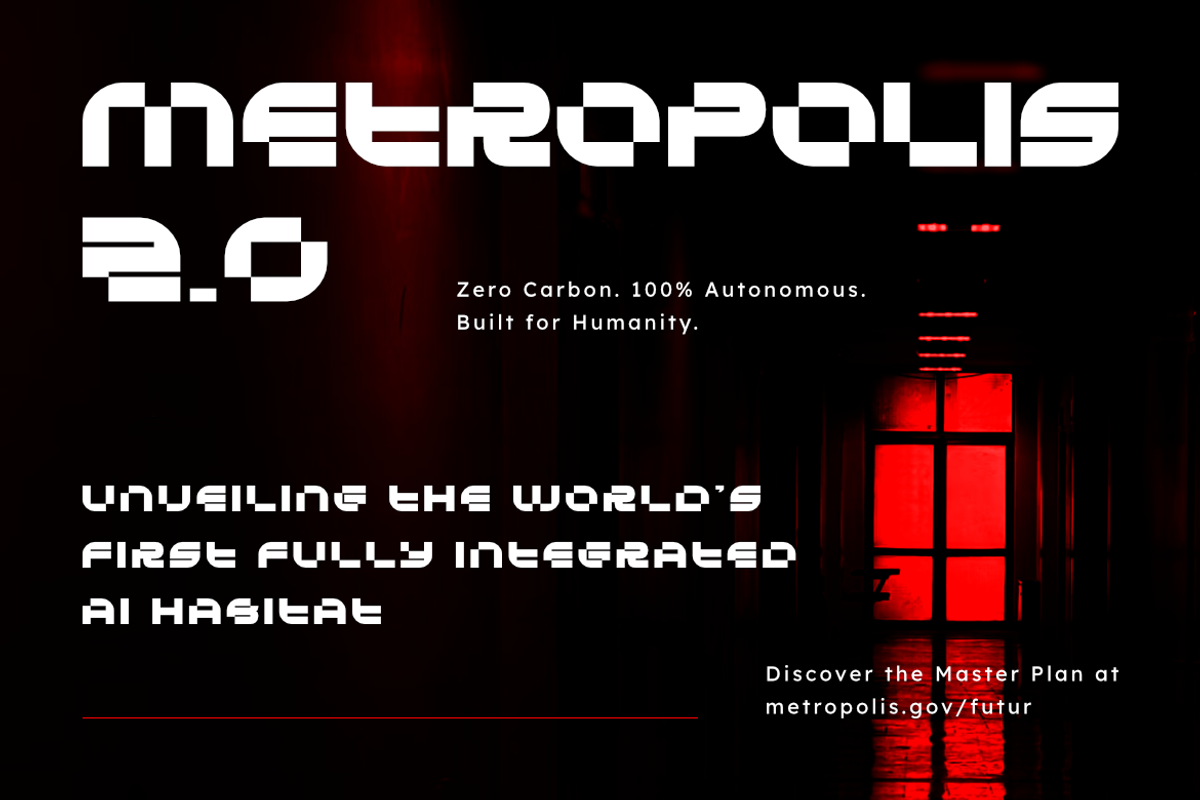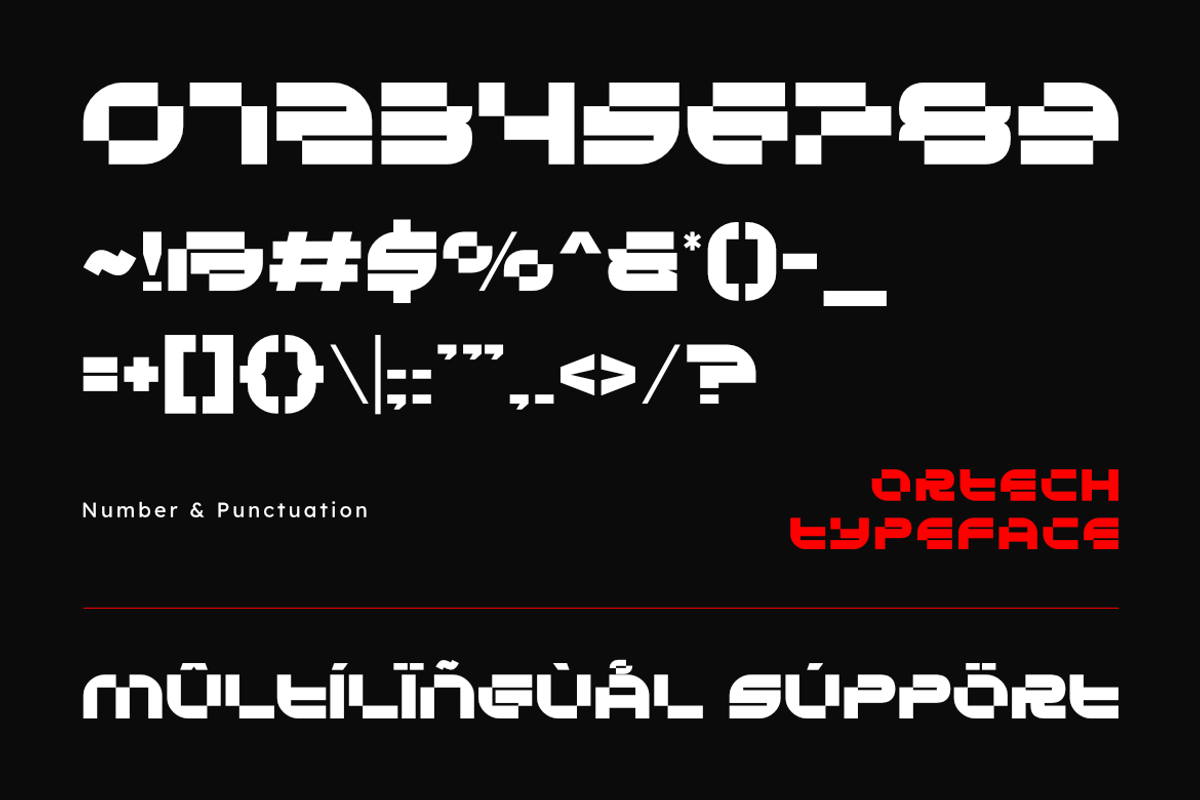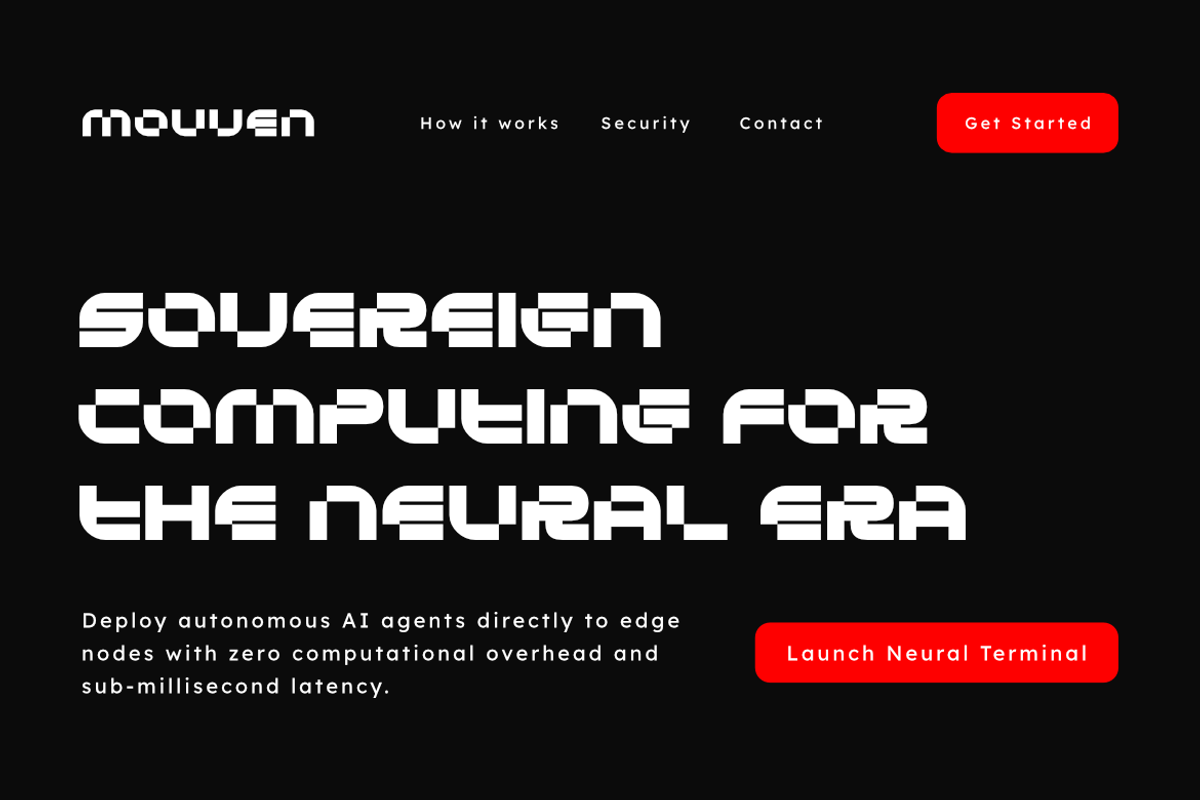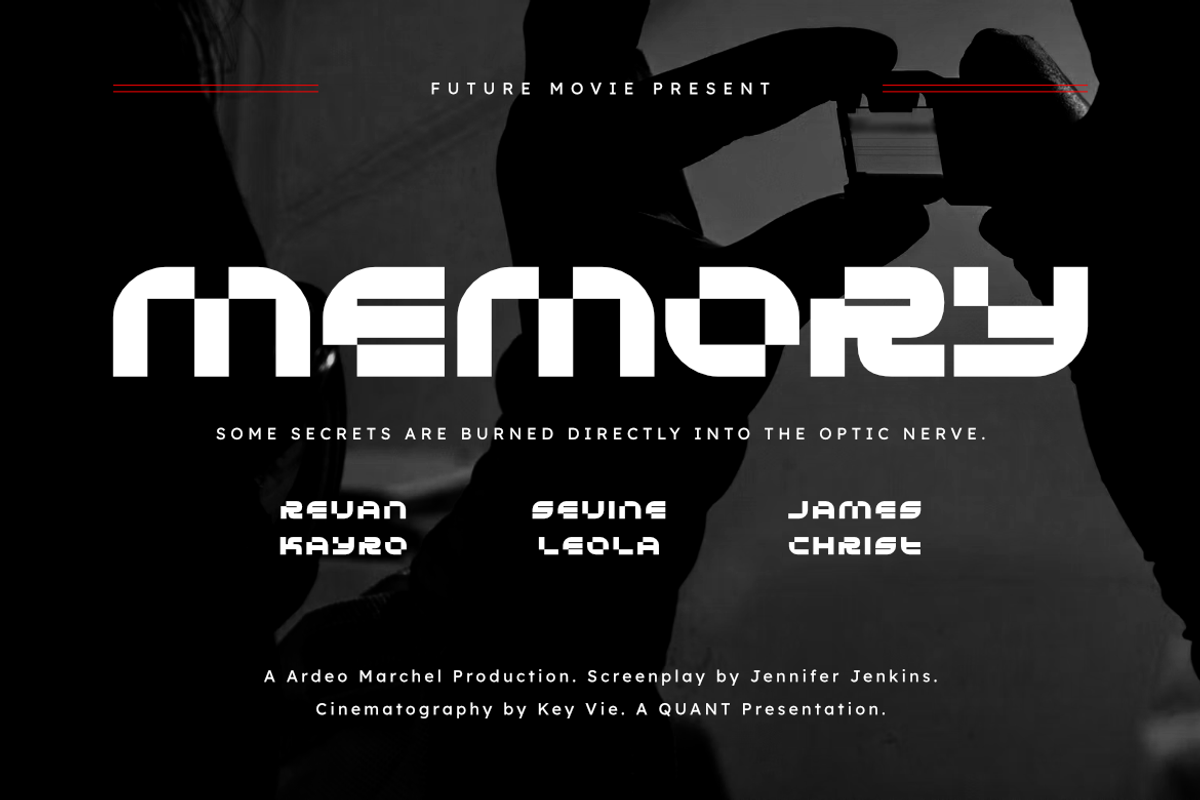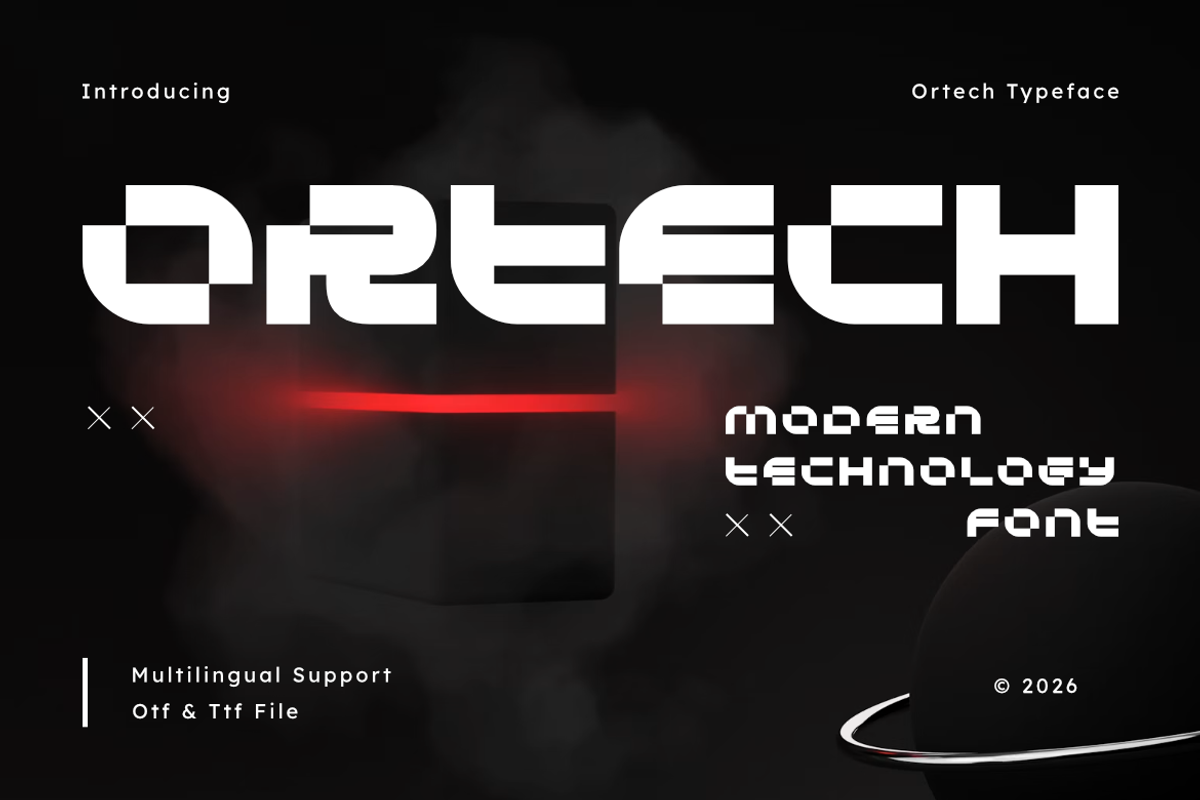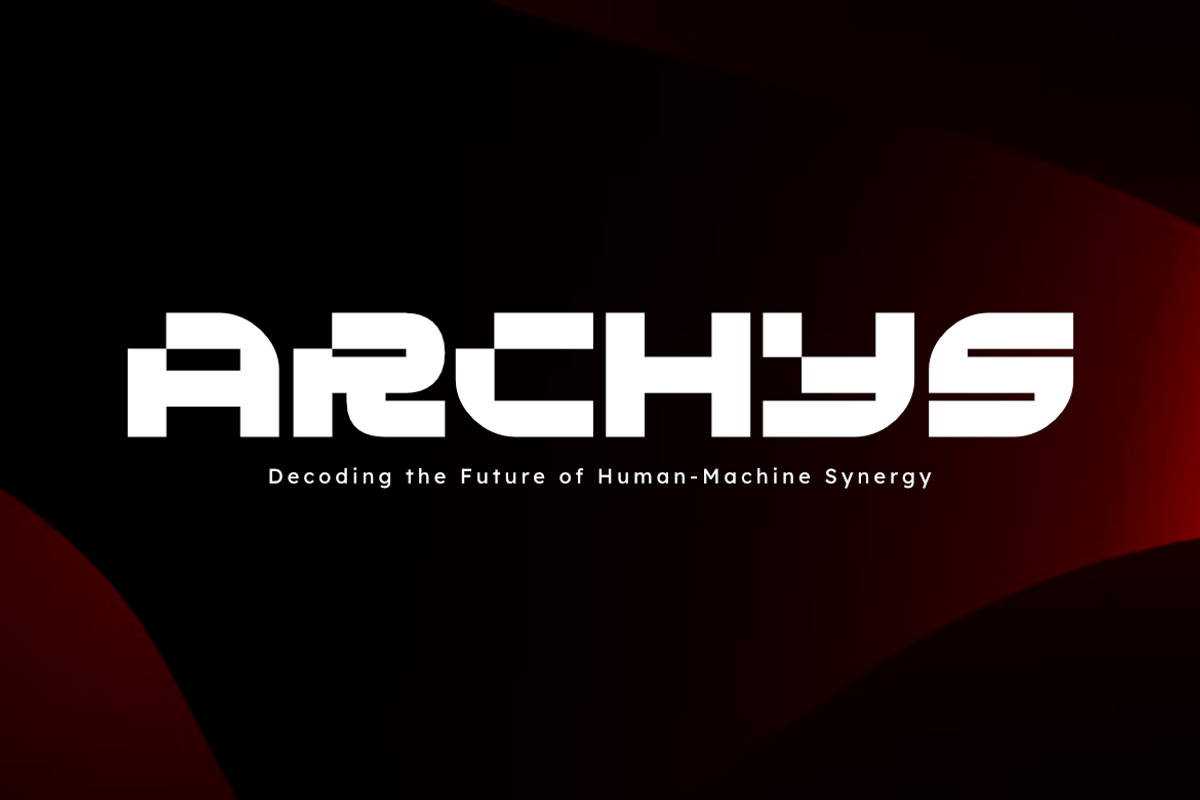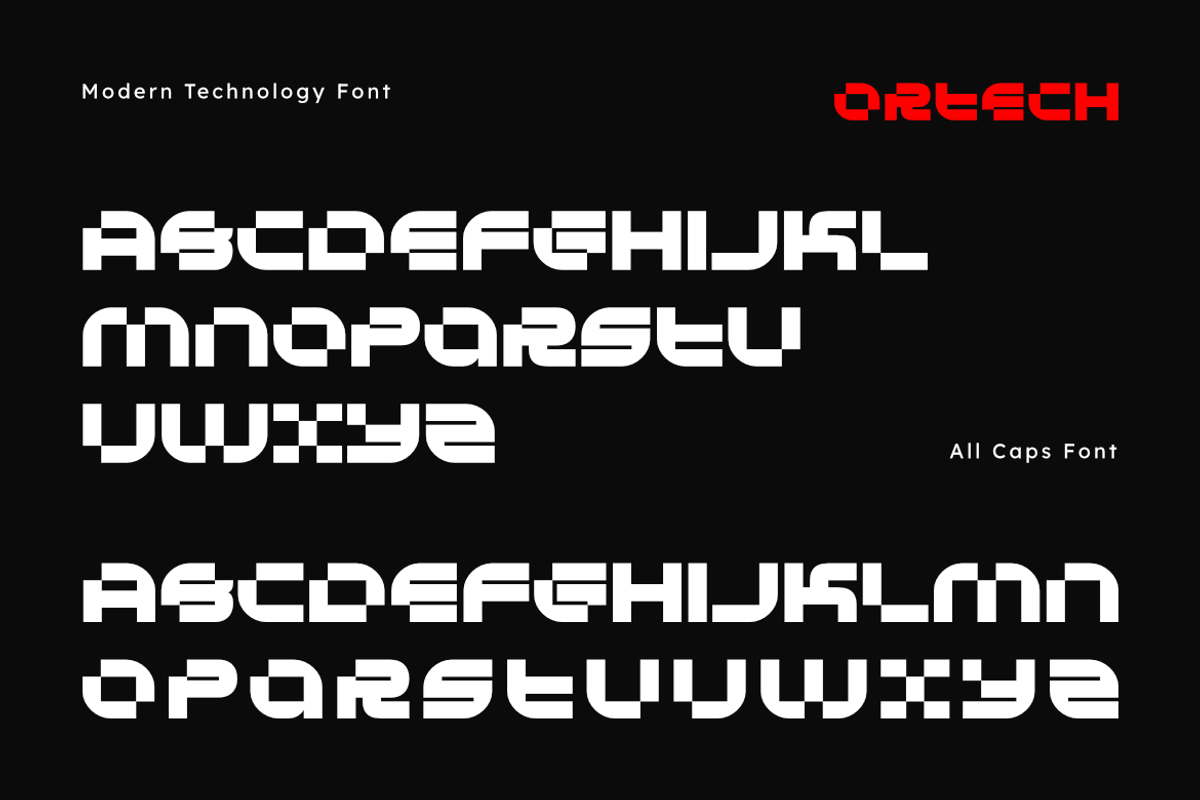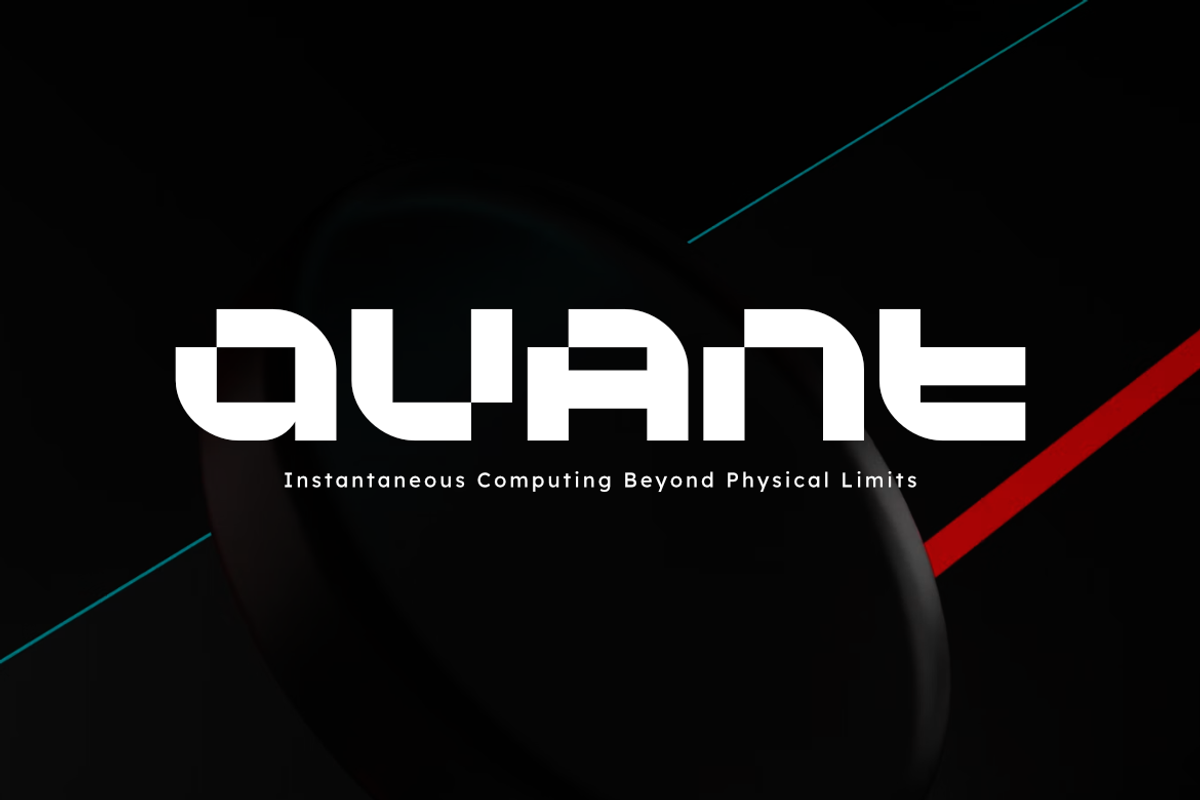
Ortech - Modern Futuristic Font
Ortech is a futuristic geometric display font designed with bold modular shapes, smooth rounded corners, and distinctive horizontal cutouts. Its structured letterforms create a sleek technological aesthetic while maintaining a strong and highly recognizable visual presence.
With its combination of heavy geometric forms and futuristic details, Ortech brings a modern digital character to headlines, logos, brand identities, and large display compositions. The unique construction gives each letter a distinctive silhouette, making the typeface especially effective for projects that require a bold and forward-thinking visual style.
Ortech is ideal for technology branding, gaming identities, software products, digital platforms, sci-fi graphics, futuristic campaigns, UI/UX concepts, and modern visual identities.
Uppercase Letters
Geometric Display Construction
Rounded Letterform Details
Modular Shapes
Horizontal Cutout Details
Futuristic Technology Aesthetic
Technology Branding
Futuristic Logos
Software Branding
Gaming Identity
Digital Product Identity
Tech Startup Branding
App Branding
UI/UX Design
Sci-Fi Titles
Digital Advertising
Futuristic Campaigns
Modern Visual Identity